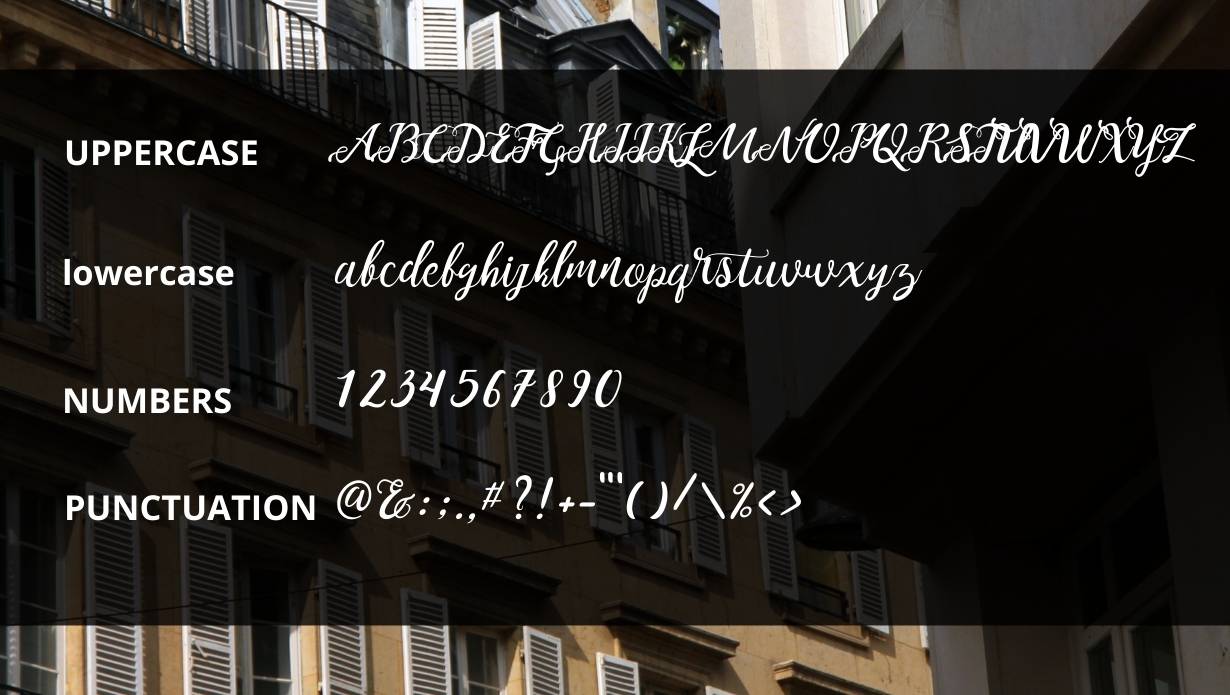
Noelan Script Font is a beautiful, unique font that was created by an independent designer. This font has a very detailed and specific design, which makes it perfect for use in branding and identity work. The Font is also incredibly versatile and can be used for both titles and body copy.
Despite its intricate design, the Noelan Script Font is still very easy to read, making it perfect for any project.
This Font was created by designer Noel Leu, who is based in Germany. Noel has been working as a freelance graphic designer for over 10 years and has created a number of different fonts during that time.
The Noelan Script typeface is the most popular and well-known font and has been used by a number of different companies and brands. This Font is available in both regular and bold weights, as well as in a number of different languages.
Name | Noelan Script Font |
Designer | Noel Leu |
Style | Script |
Usage
You can make beautiful designs, identities, logos, and much more with Noelan Script typeface. This Font is perfect for any project that requires a unique and detailed font. This font would be perfect for branding work, as well as titles and body copy.
This font is also commonly used in wedding invitations and other special occasions. If you are looking for a unique and beautiful font, then this Font is the perfect choice for you
This Font is perfect for any project that requires a unique and stylish font. This font would be ideal for branding or identity work, as well as for titles and body copy.
This font texture is perfect for giving any project a luxurious and high-end feel. This Font is also perfect for creating a sense of sophistication and elegance. You can also try the elegant wellfont brush font and can make amazing stuff by pairing these typefaces.
Designer
This font is popular worldwide that was designed by a very famous designer named Noel Leu. This designer is famous because of his creative design.
- Noelan Script Normal
- Noelan Script Condensed
- Noelan Script Italic
- Noelan Script Heavy
Is Noelan Script a good typeface ?
Yes, This typeface is an excellent font. It is perfect for any project that requires a unique and detailed font.
What is Noelan Script typeface used for?
This Font is perfect for any project that requires a unique and detailed font. This font would be perfect for branding work, as well as titles and body copy.
What is Noelan Script Font similar to?
Noelan Script typeface is similar to other unique and detailed fonts, such as Bodoni and Didot.